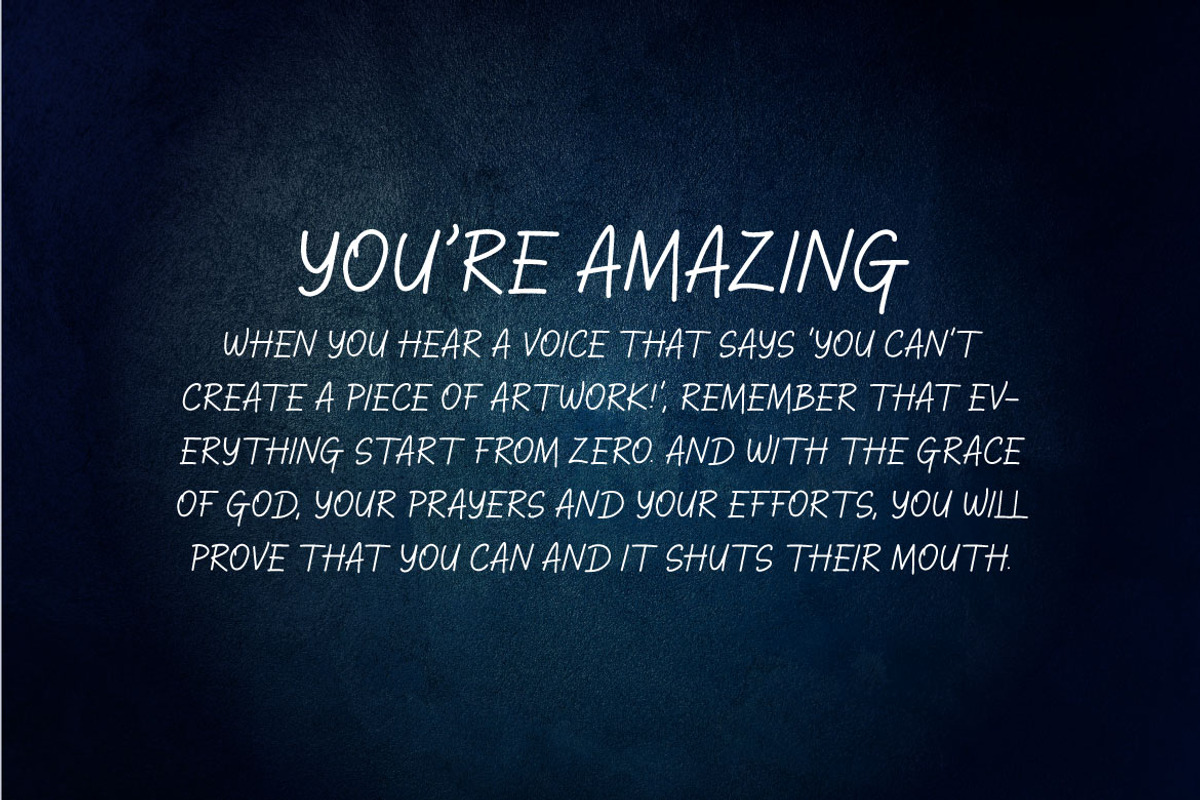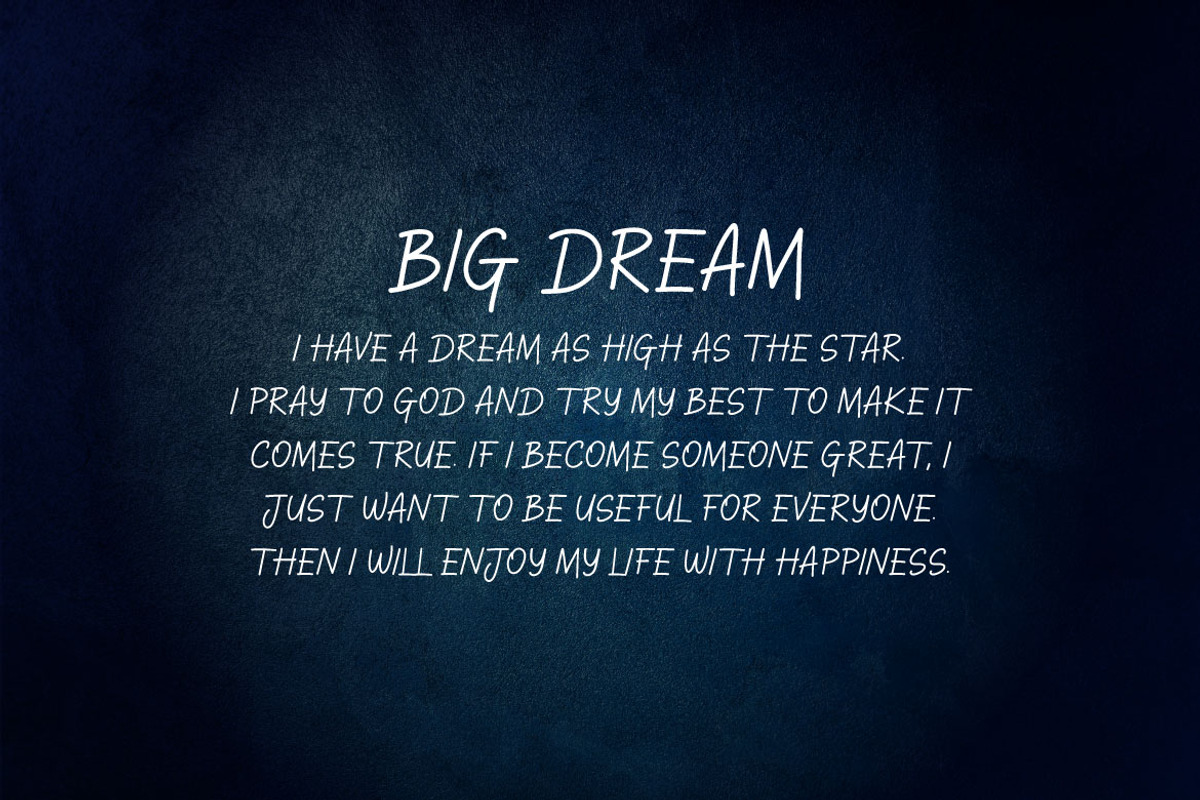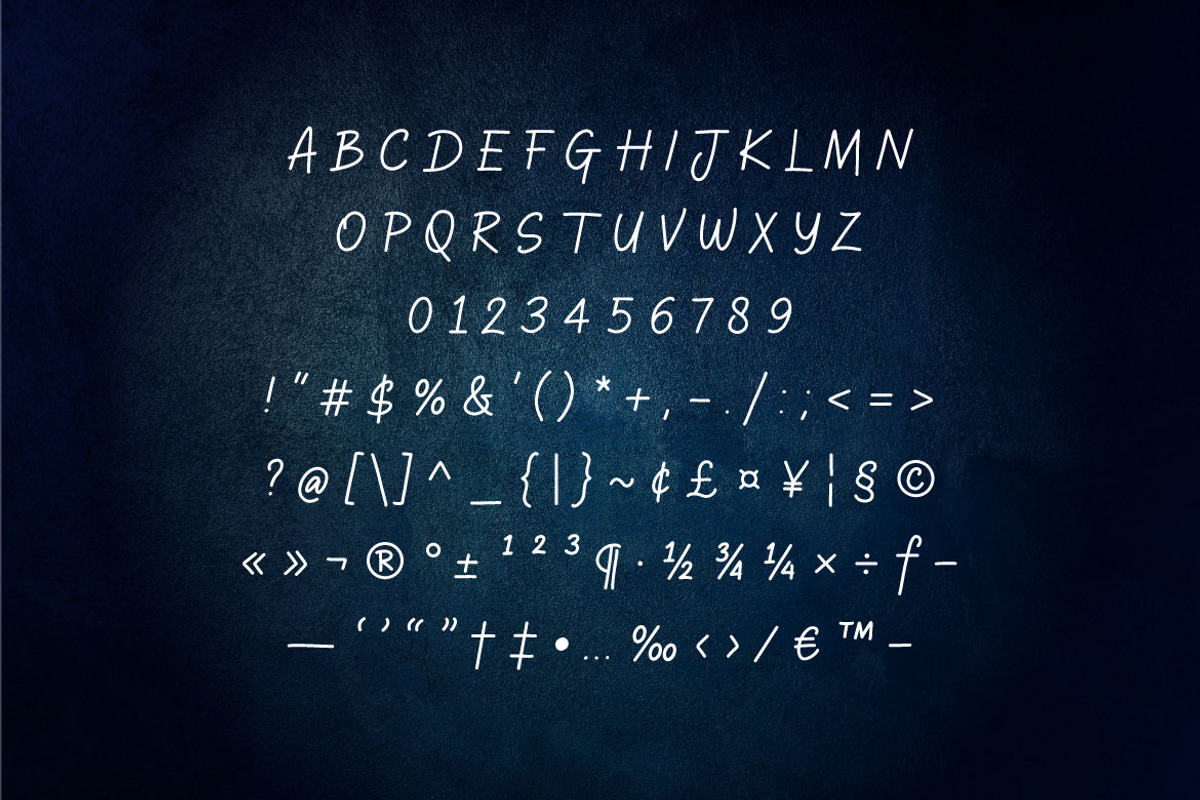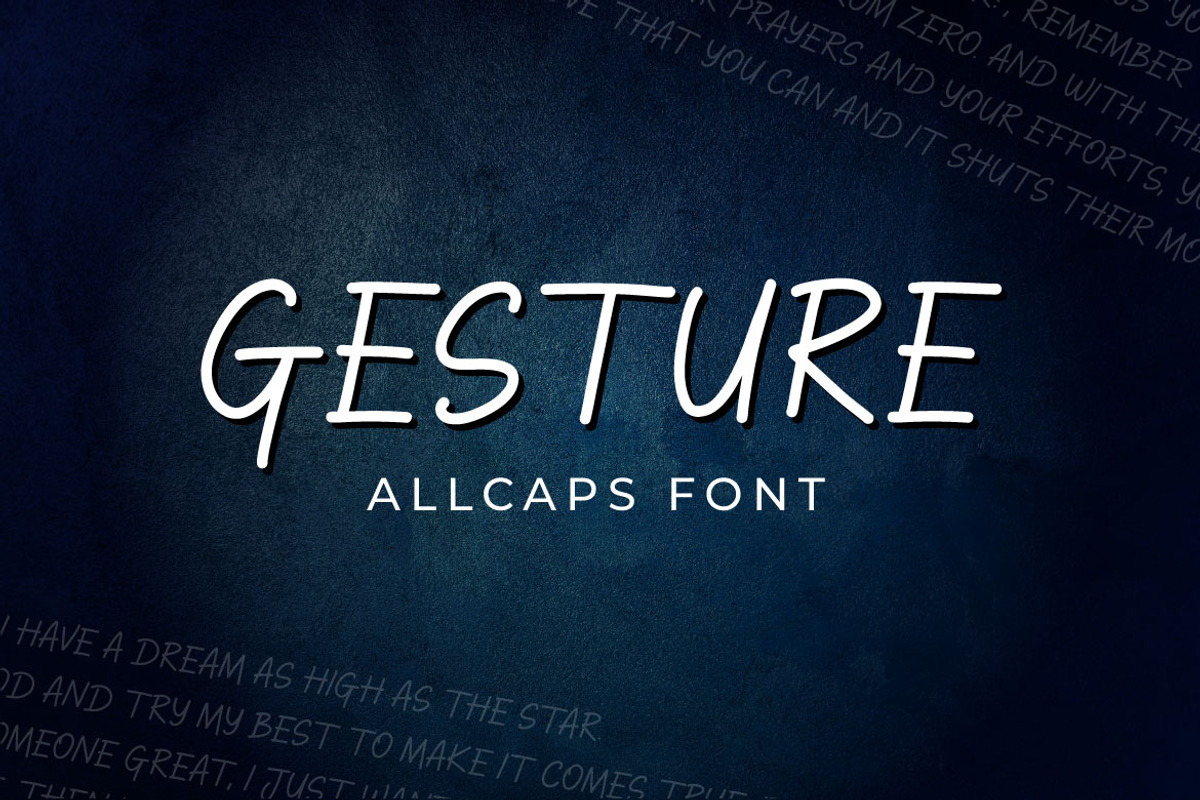
Gesture - Simple Thin Font
Hello! Gesture is a simple handwritten font. Gesture can be used in any works such as flyer, book title, advertisement, social media content, logo and many more.